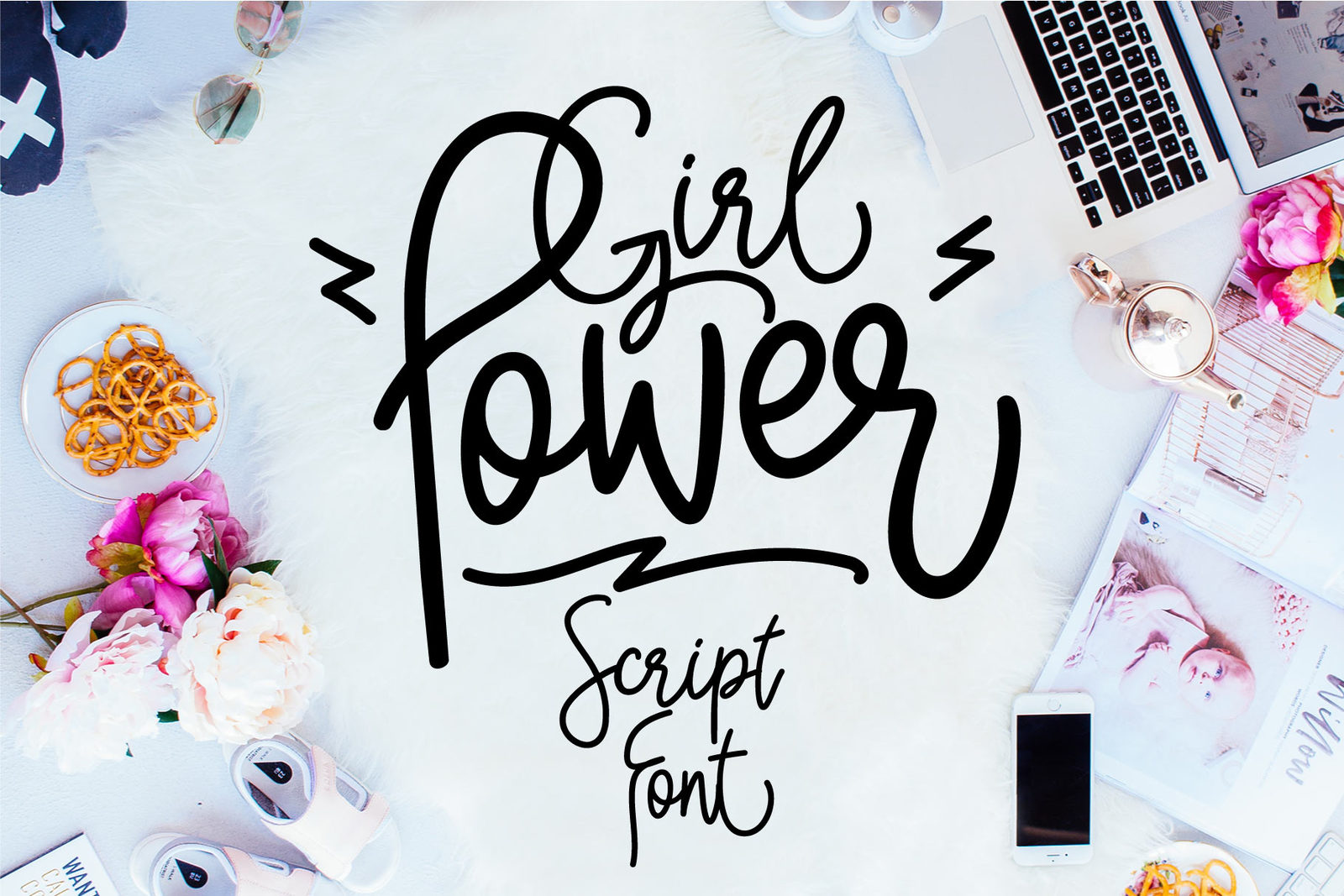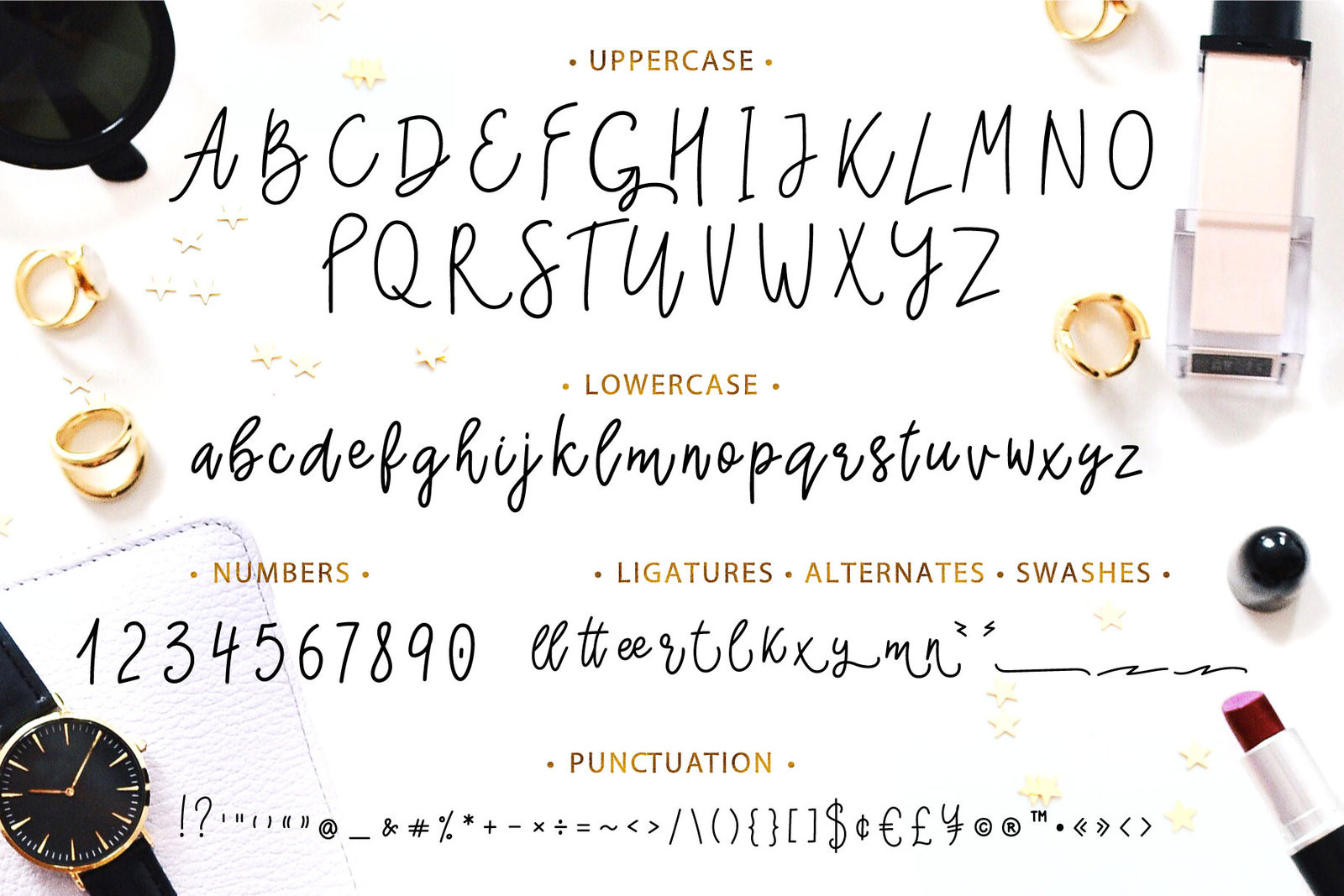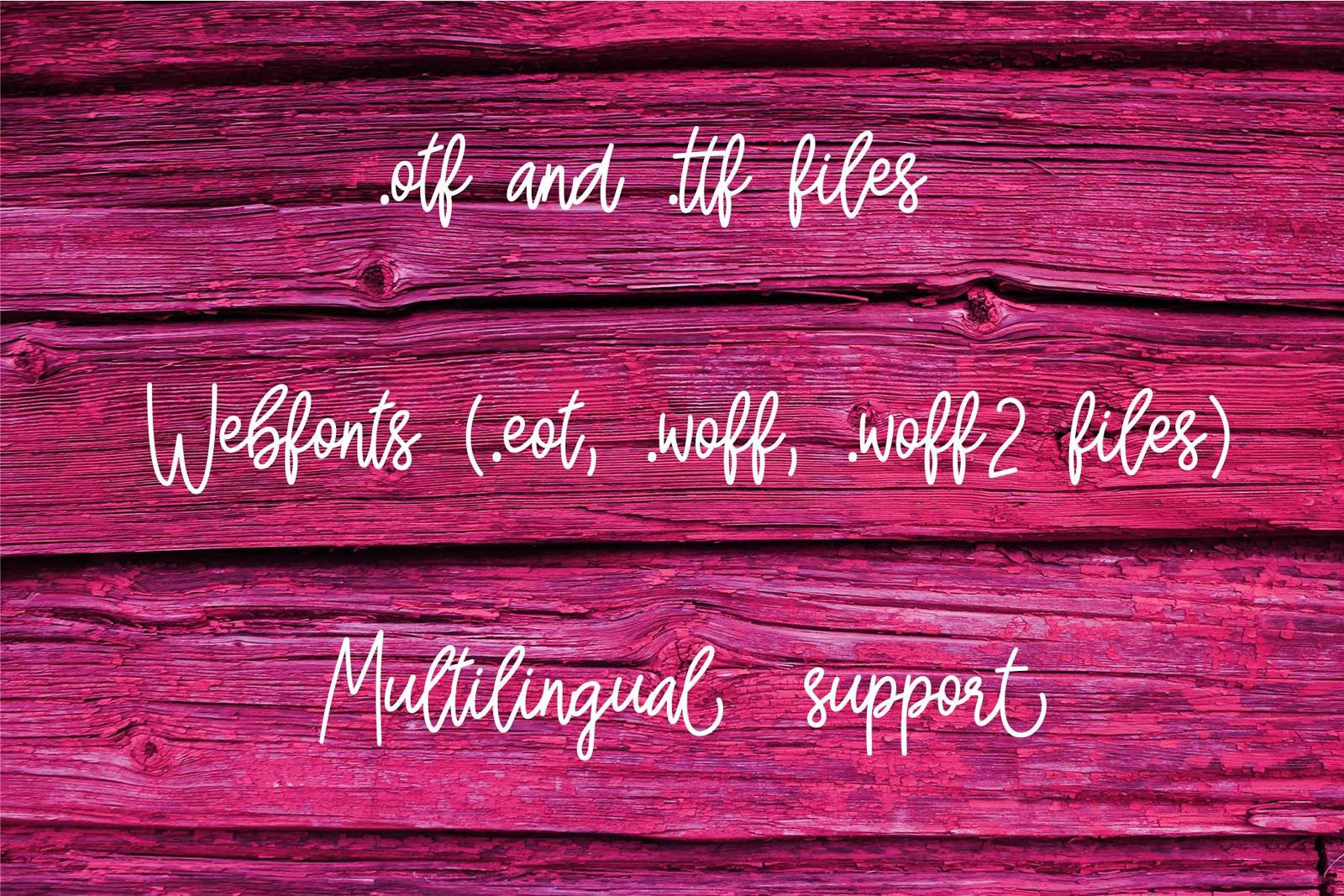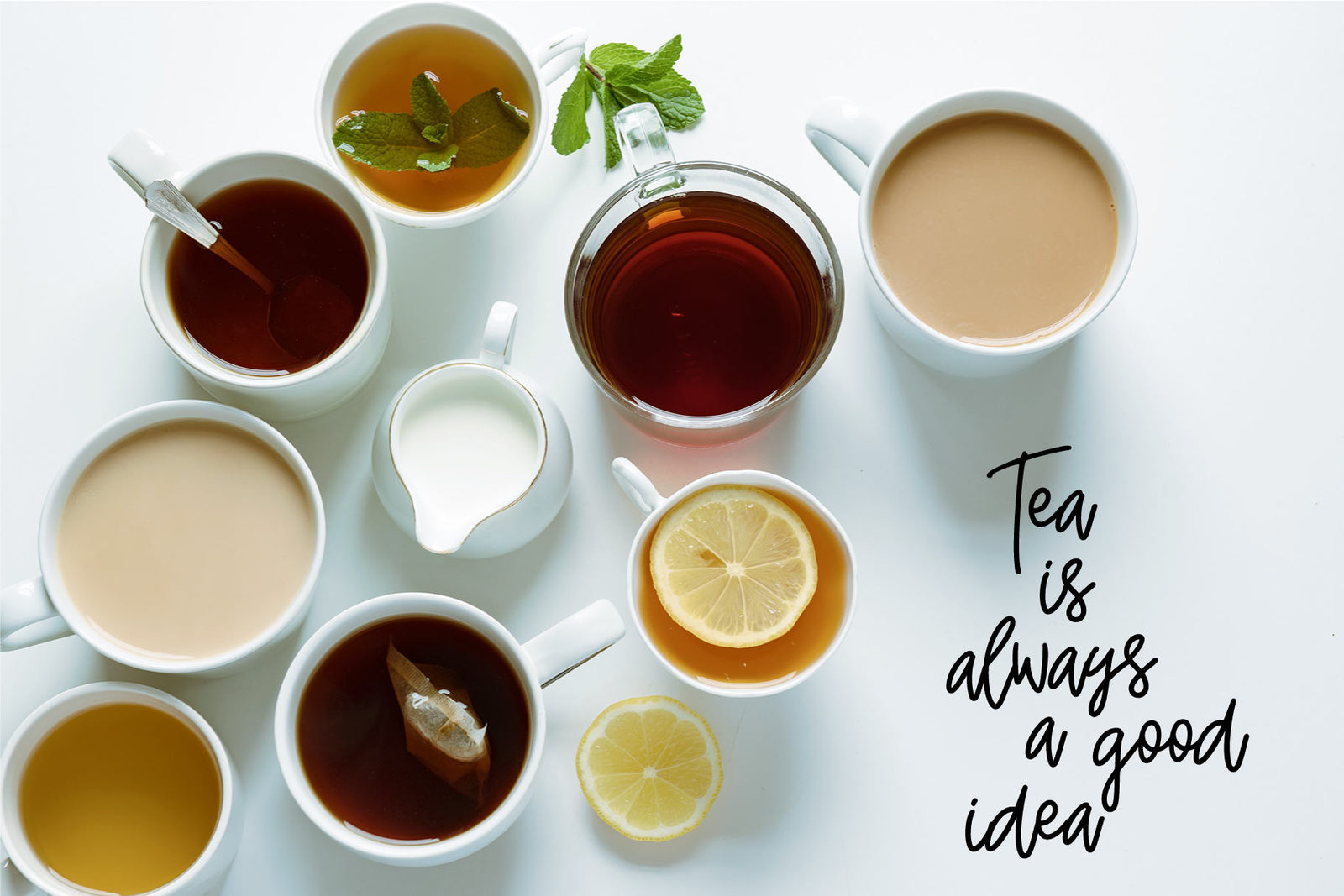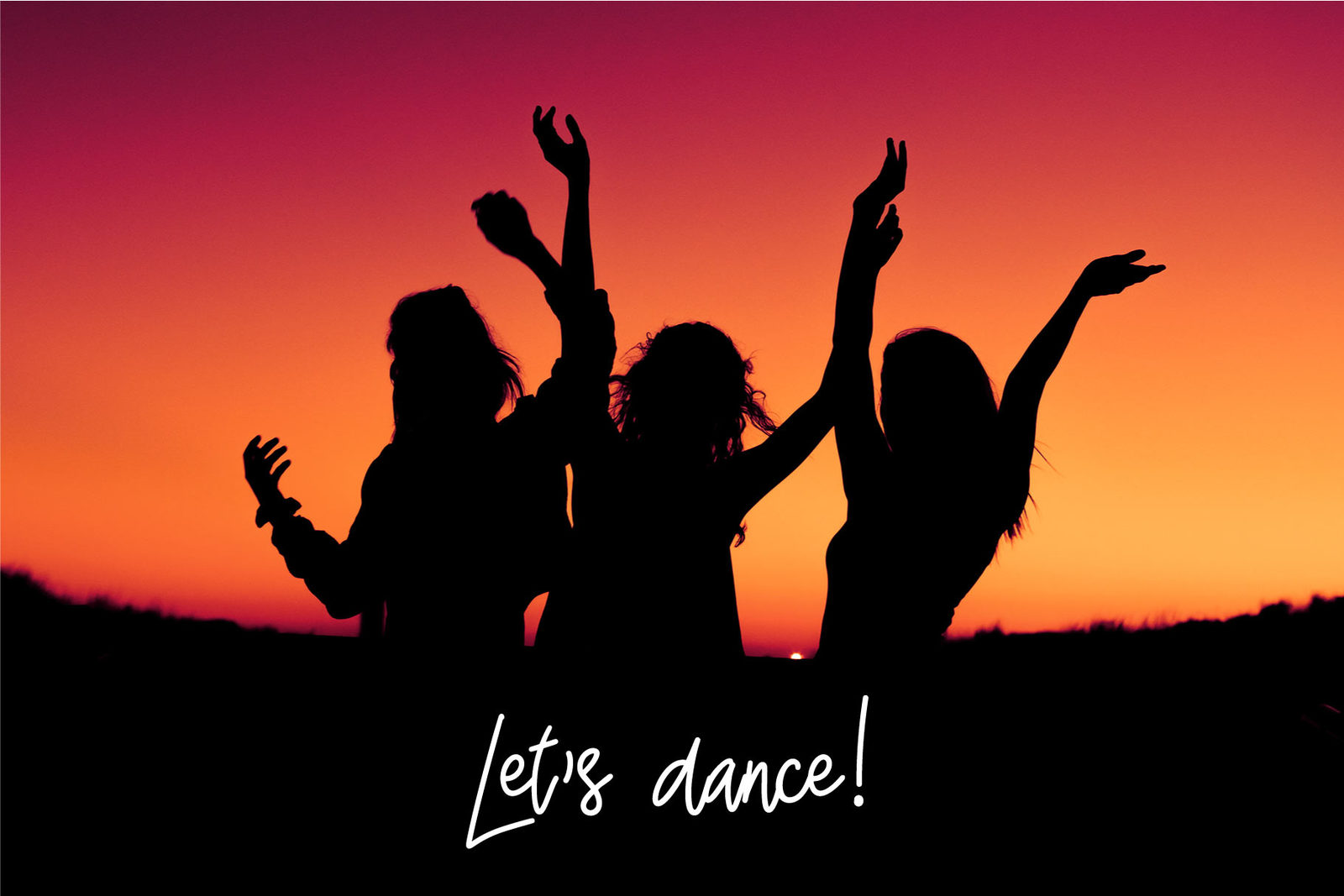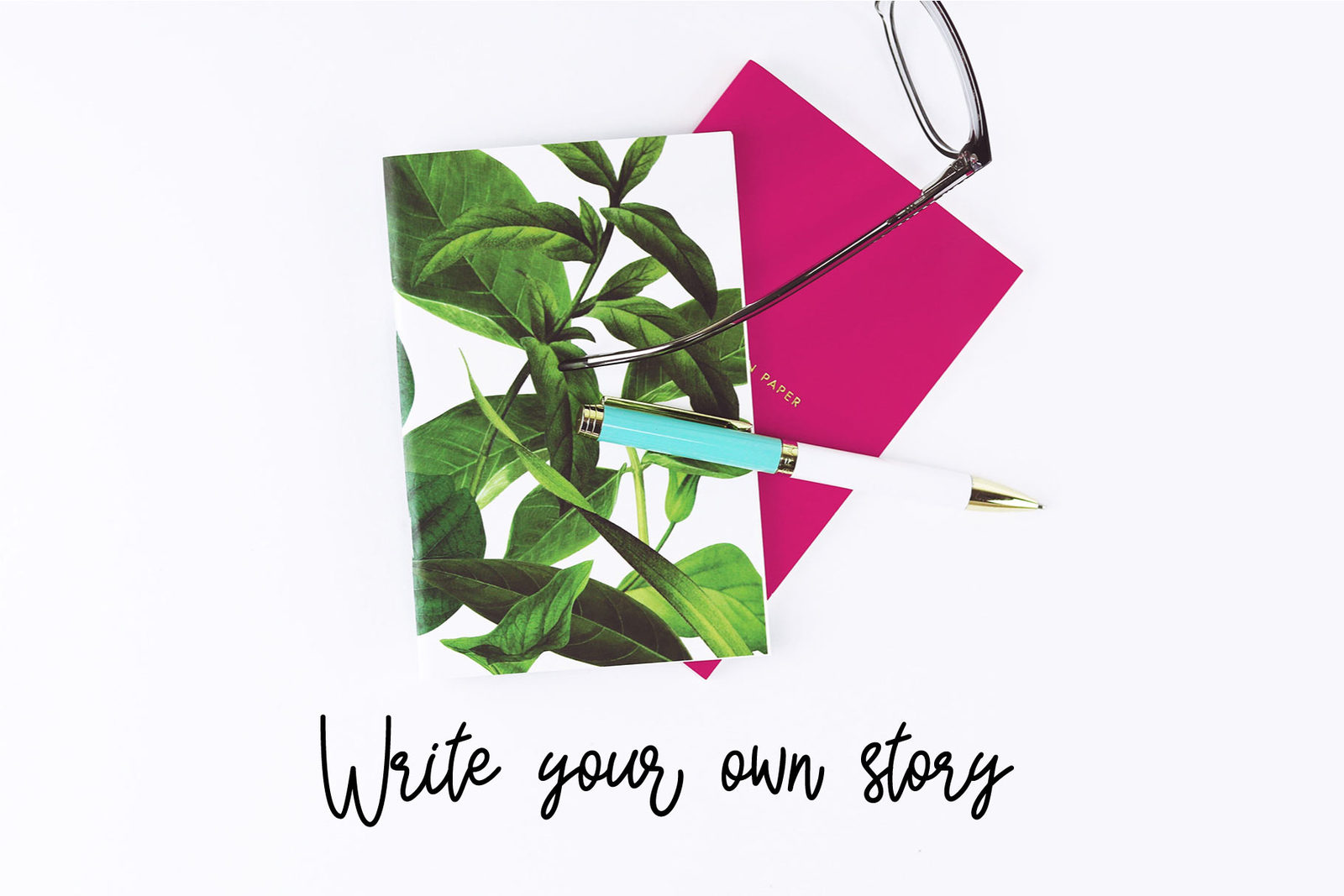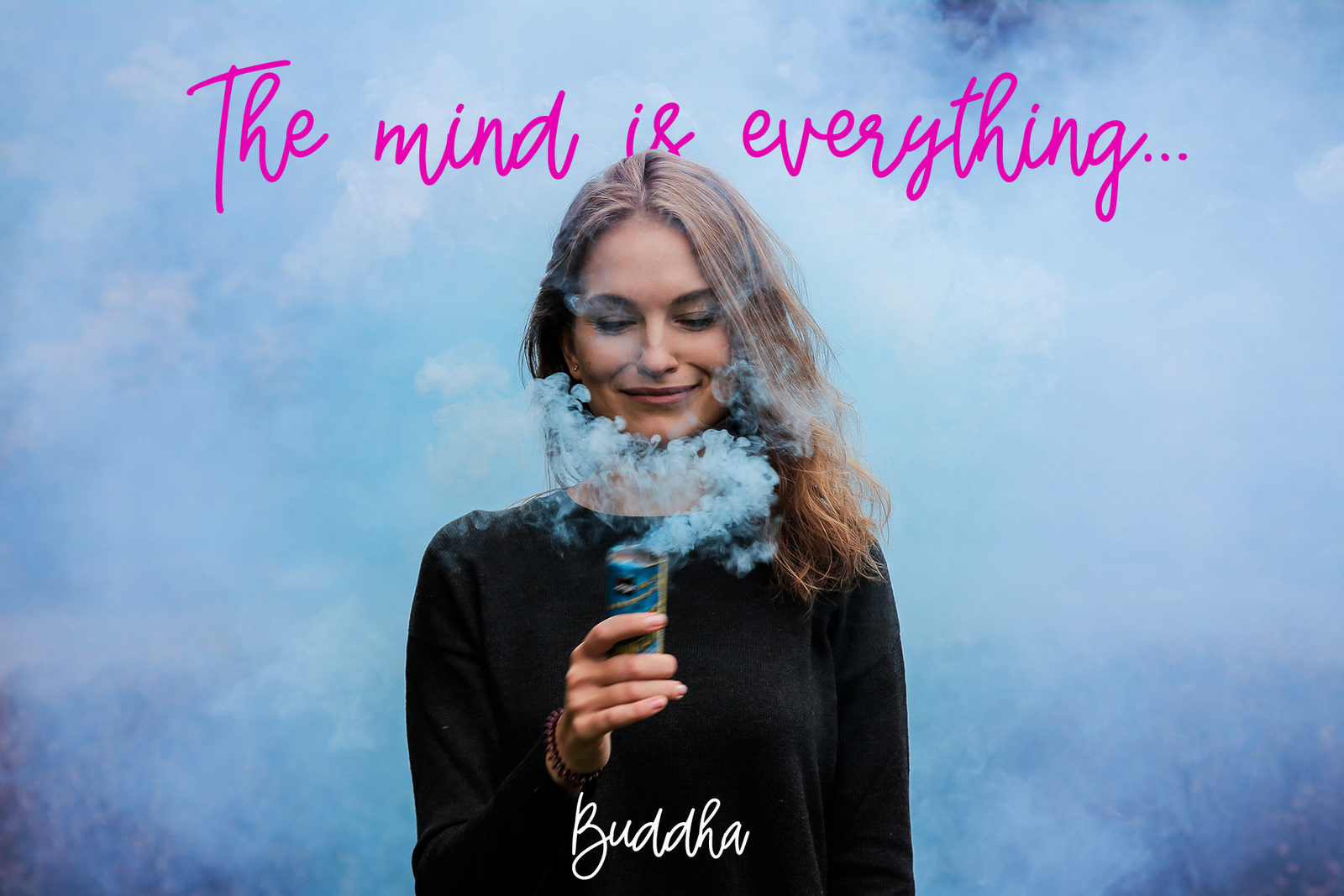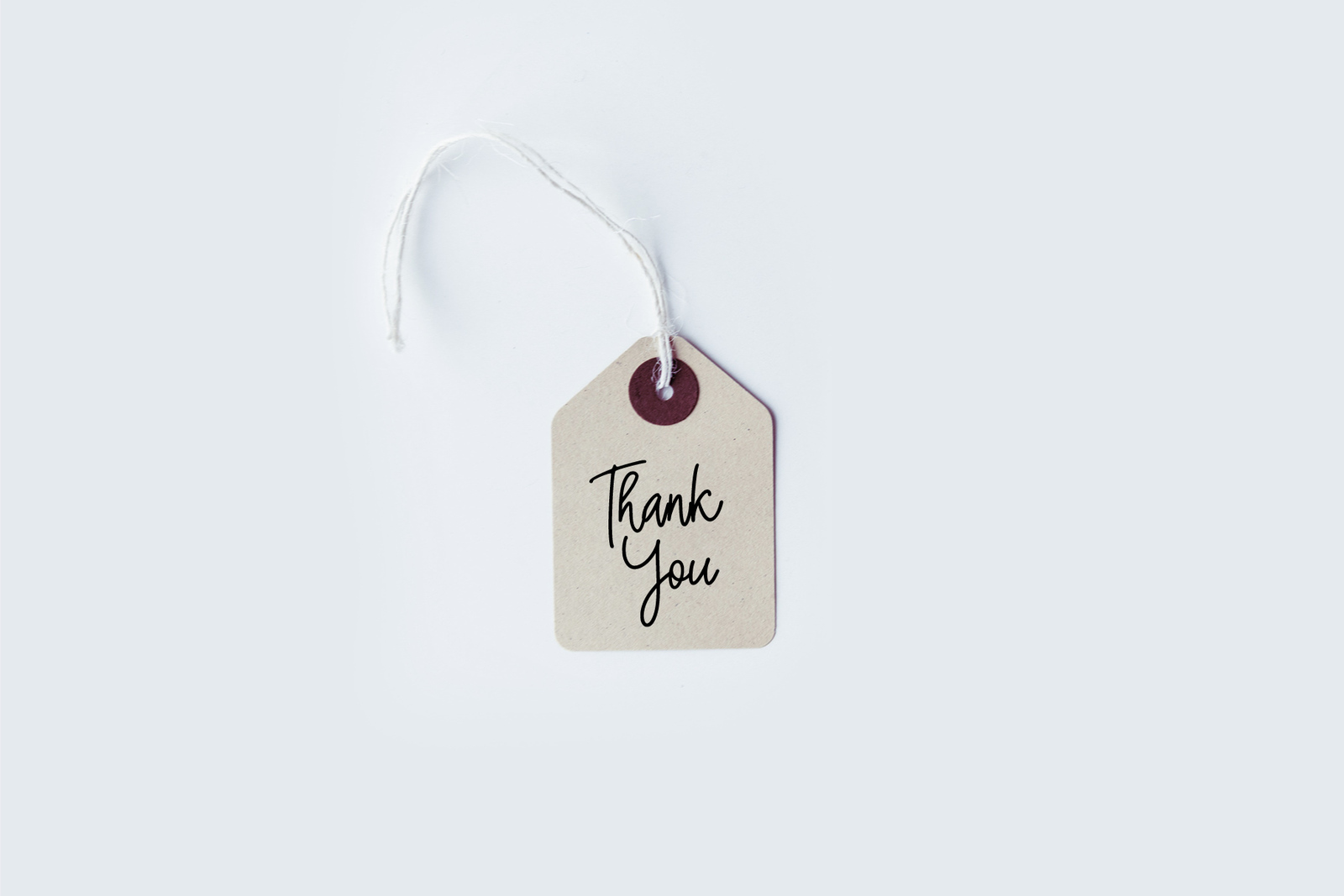
Girl Power Font
Girl Power is a beautiful modern calligraphy font with a dancing baseline. This hand-lettered script will look gorgeous on all your designs, wedding stationery, branding materials, logos, business cards, quotes and much more.
Character set
Numerals and punctuation
Alternates
Swashes
Ligatures
Multilingual support